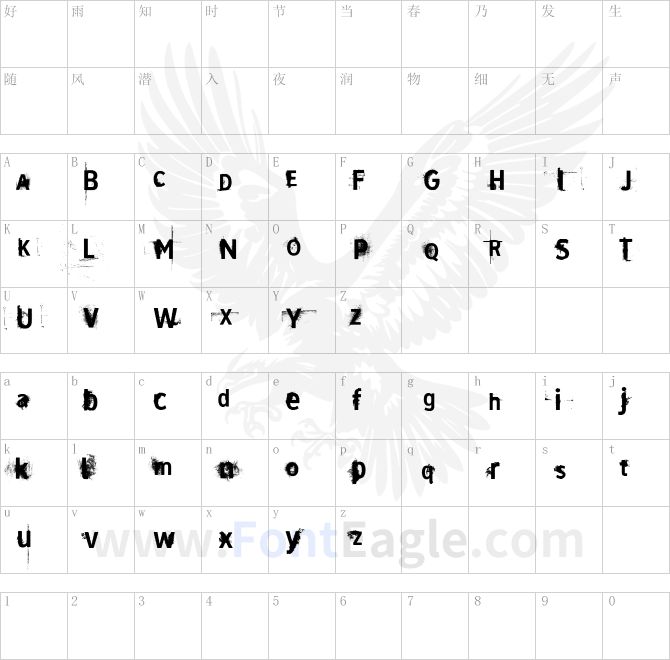
- Font name:vtks dirty 2
- Font Subfamily ID:vtks dirty:Version 1.00
- Font Full Name:vtks dirty 2
- Font Version:Version 1.00 September 6, 2011, initial release
- Postscript:vtksdirty2